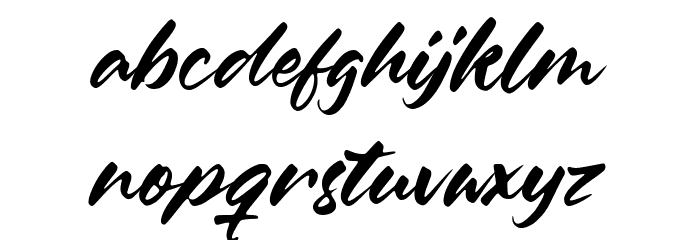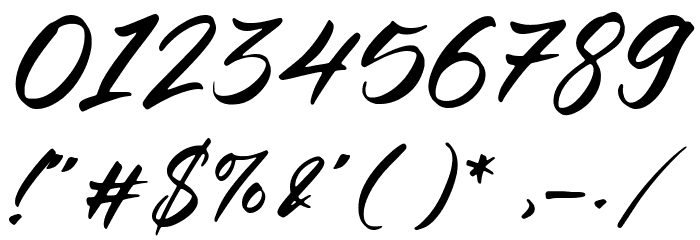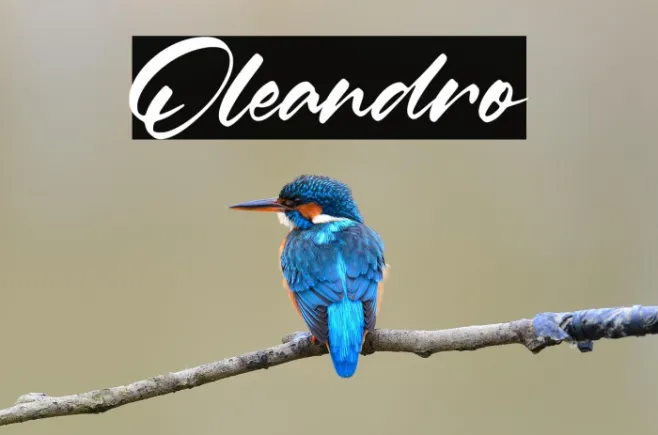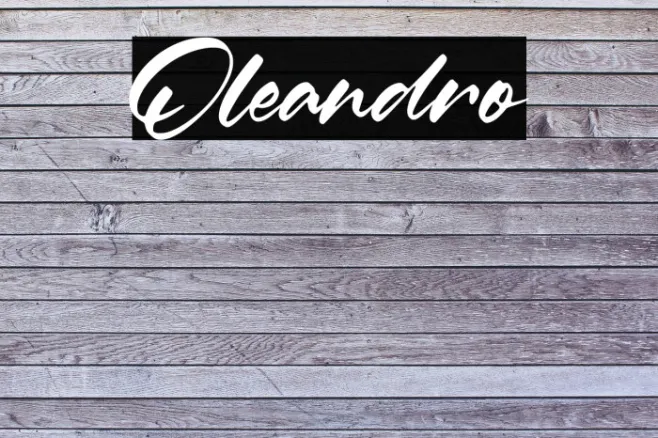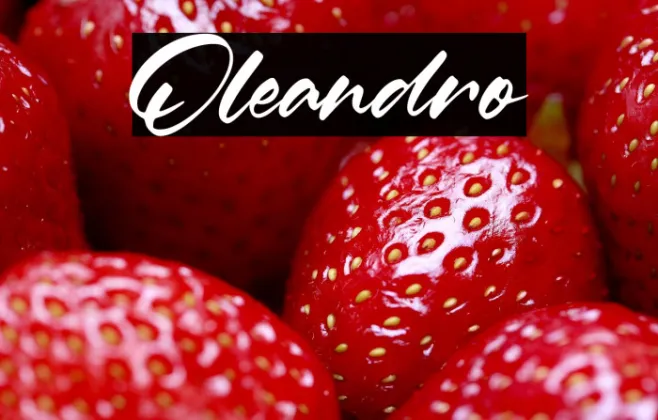
Oleandro Font
This font exudes a dynamic and energetic style with its cursive, handwritten appearance. The letters are fluid and connected, giving it a natural flow that mimics the elegance of calligraphy. The uppercase letters are bold and sweeping, while the lowercase letters maintain a consistent rhythm, enhancing readability. Numbers and special characters are crafted with the same attention to detail, ensuring a cohesive look across all text. The strokes vary in thickness, adding a lively contrast that emphasizes the font's expressive nature.
A dynamic, cursive font with a handwritten, calligraphic style.